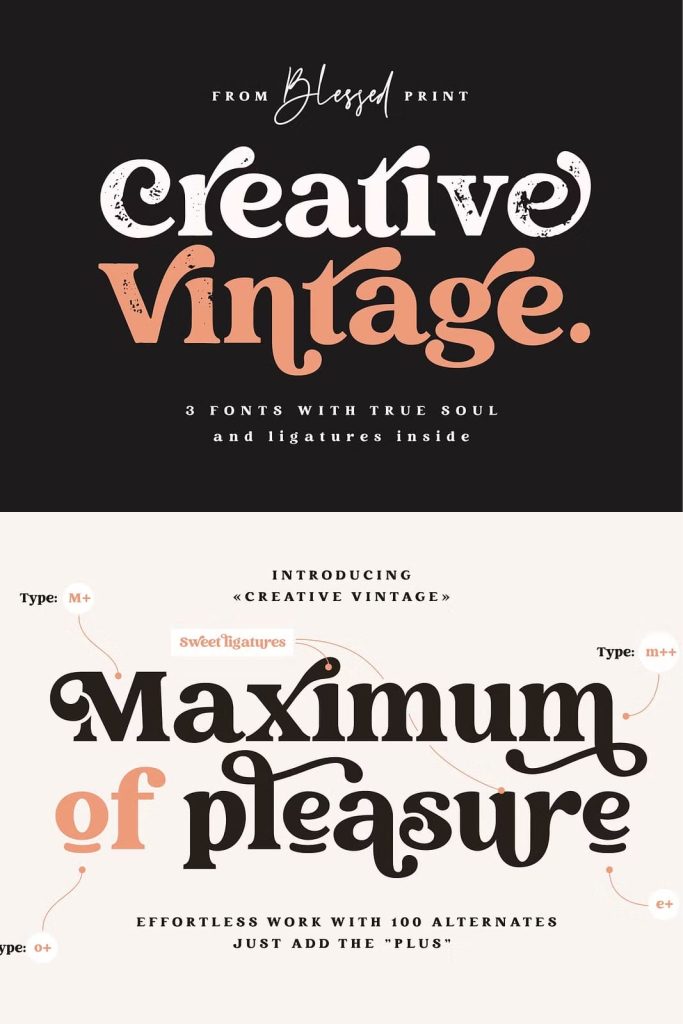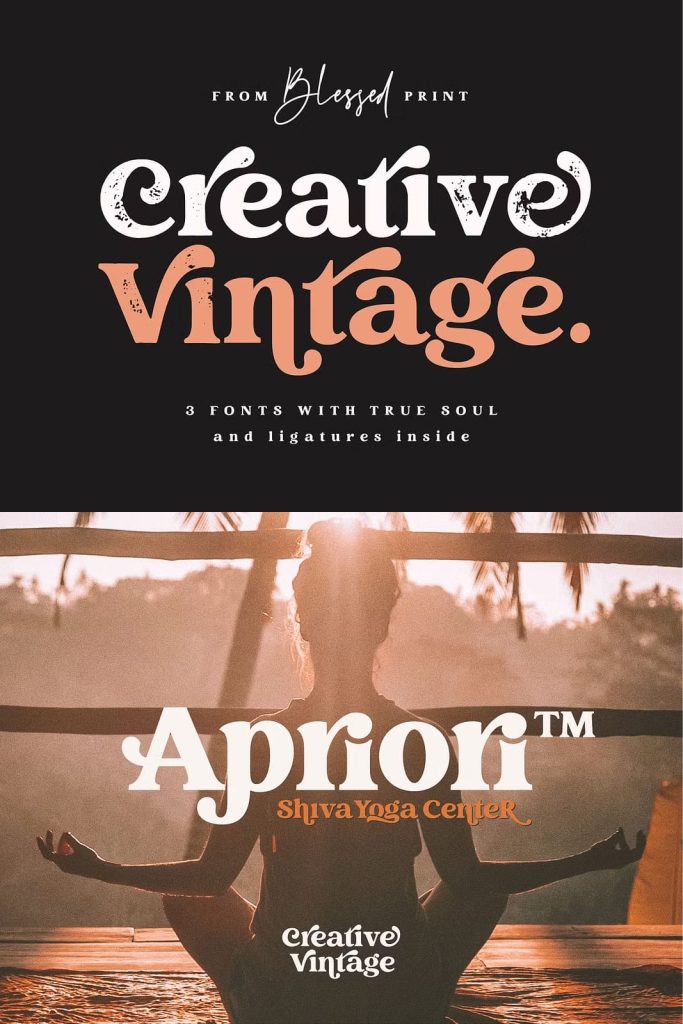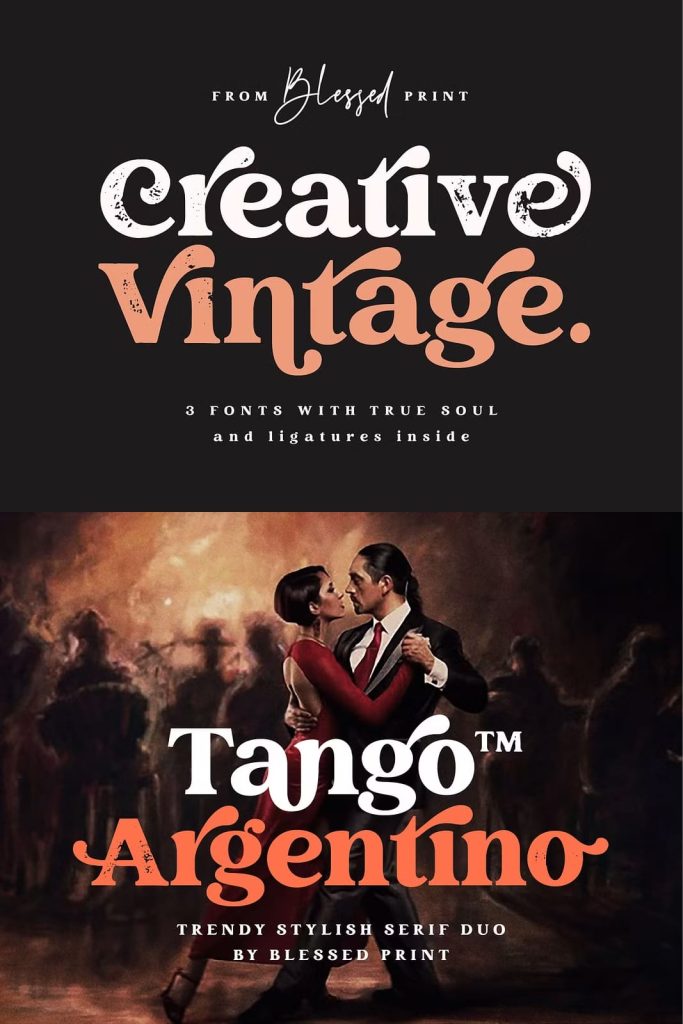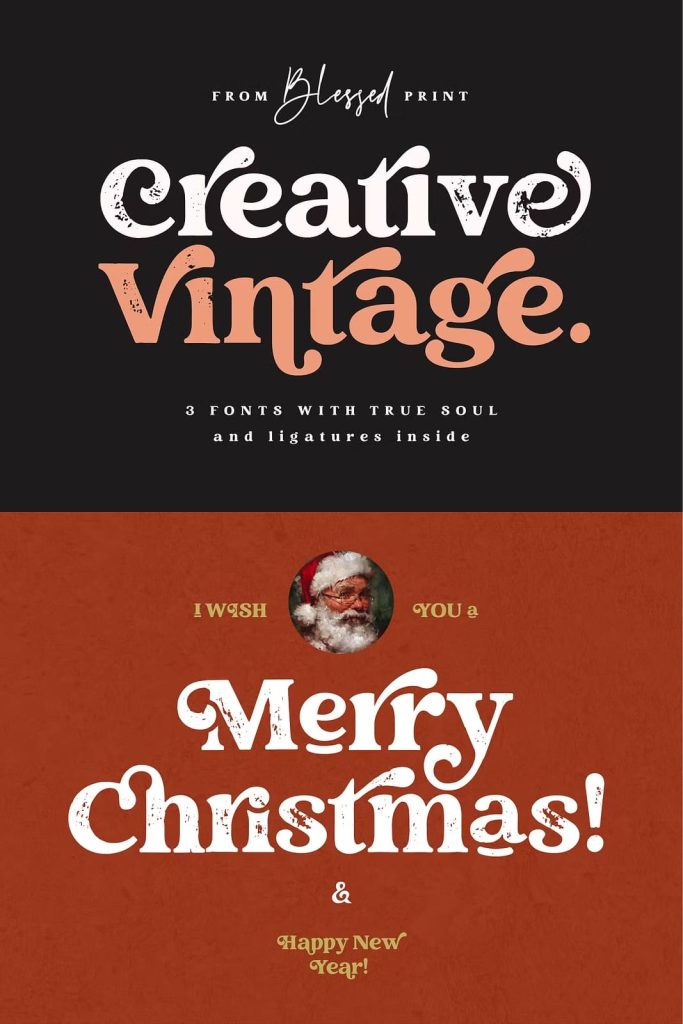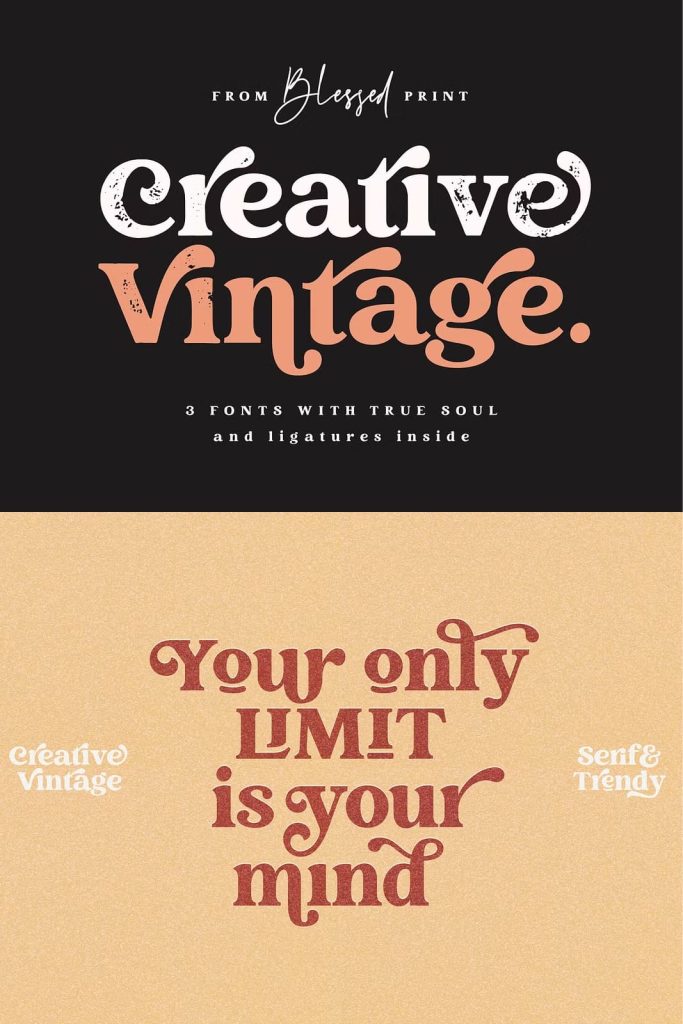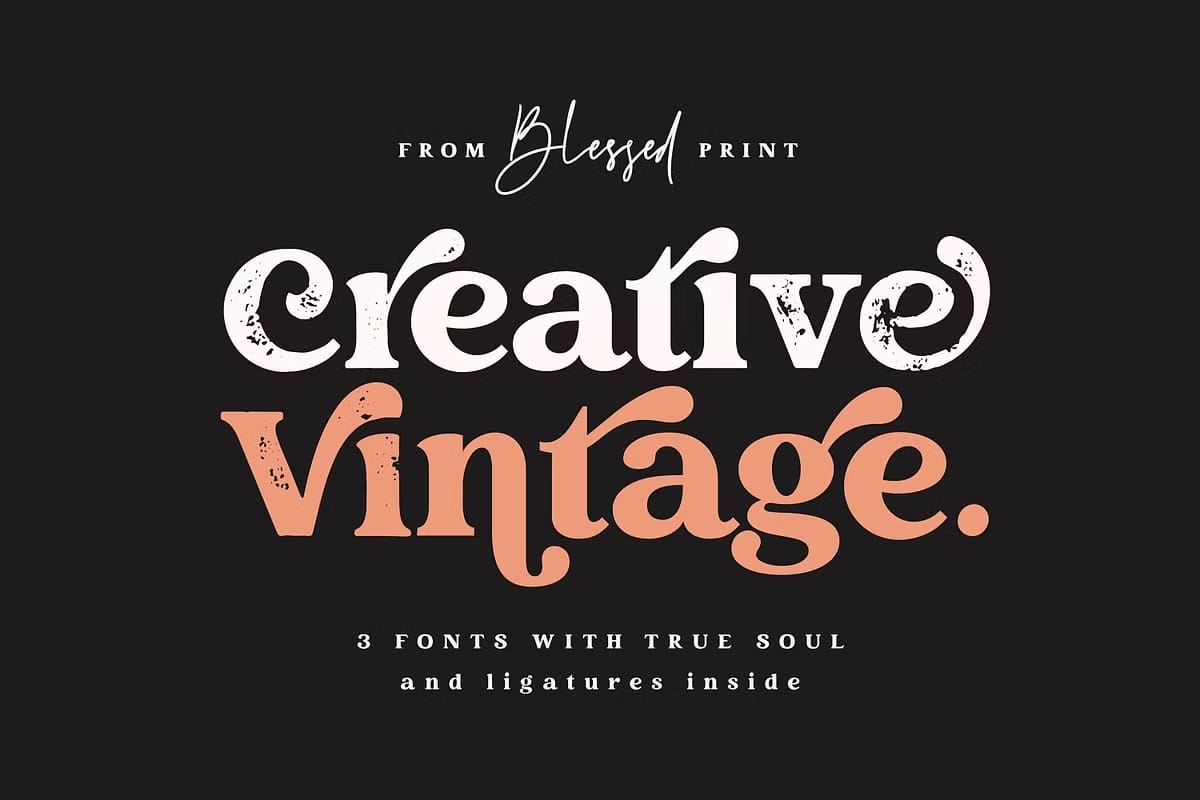
Creative Vintage Font DuodezzignerJune 11, 2025Fonts Creative Vintage – a modern serif typeface with vintage charm, fashionable look and retro-modern style Download